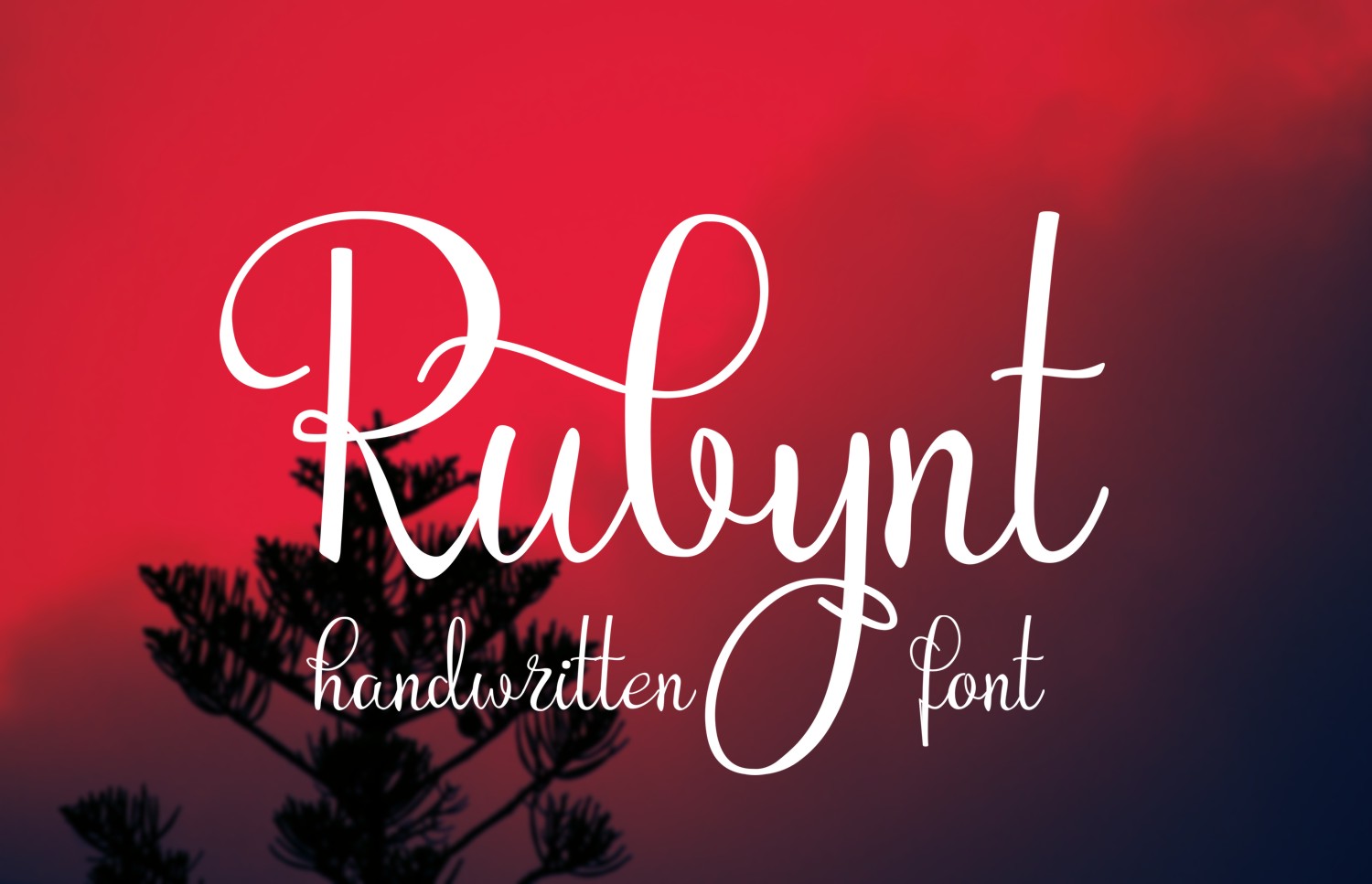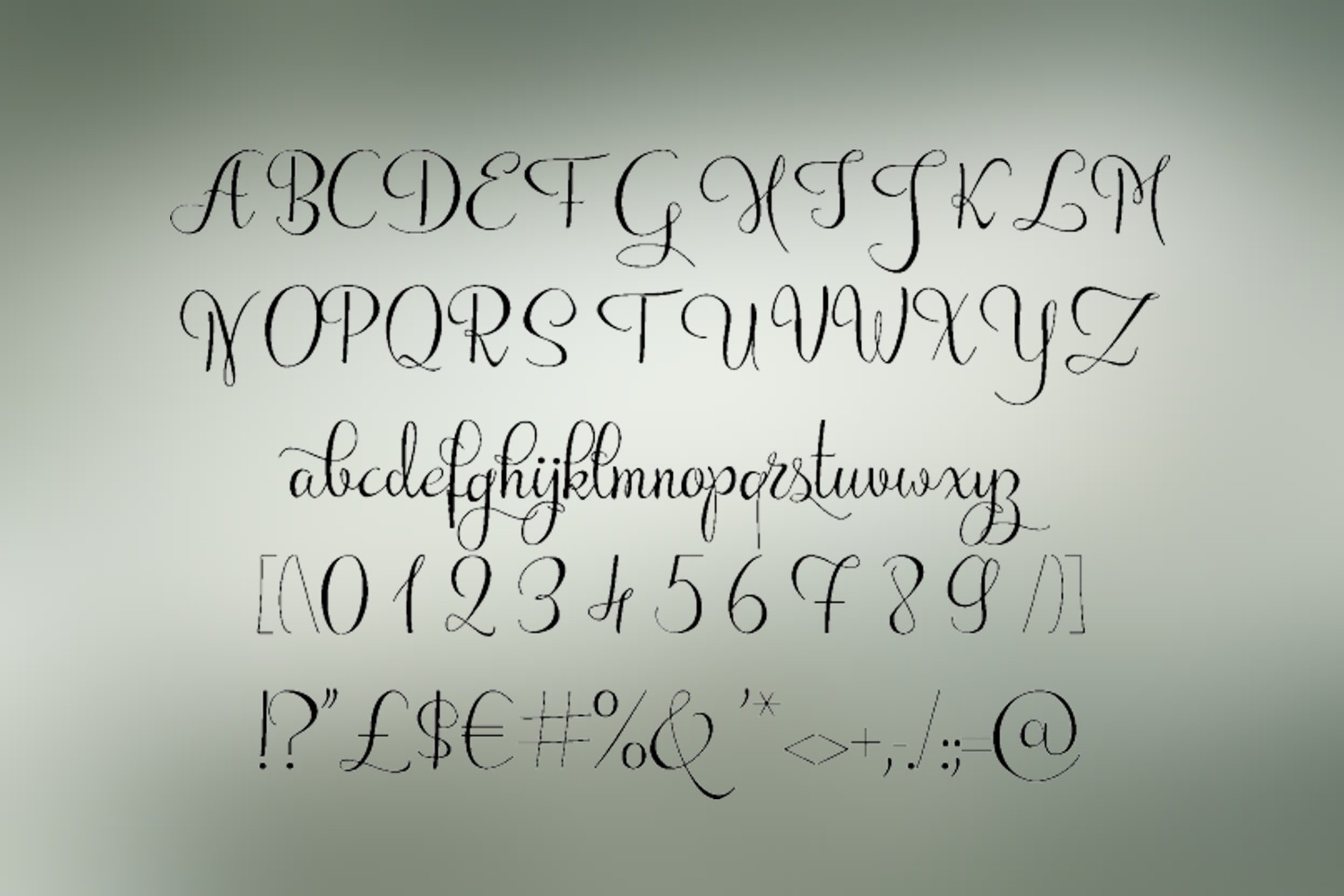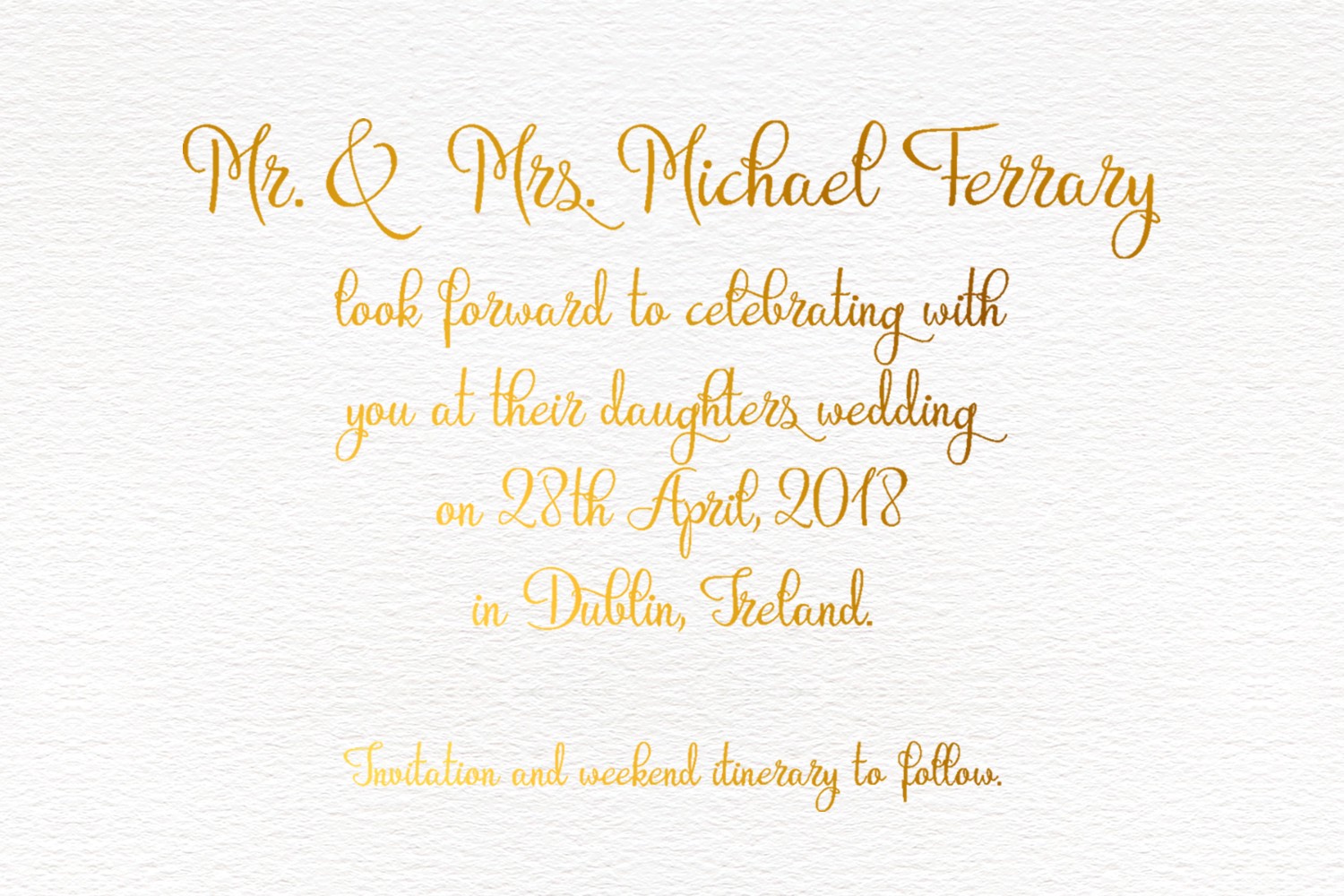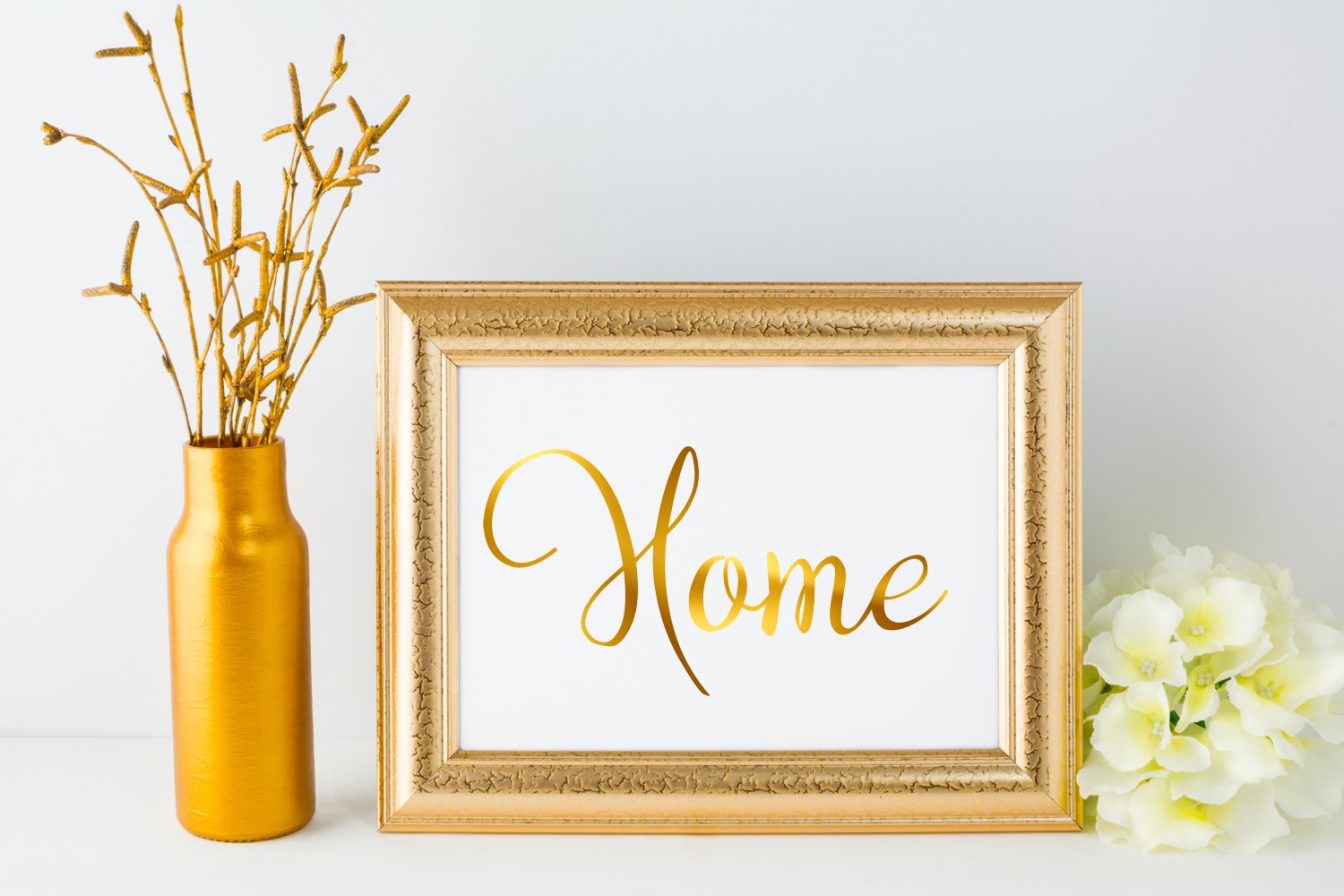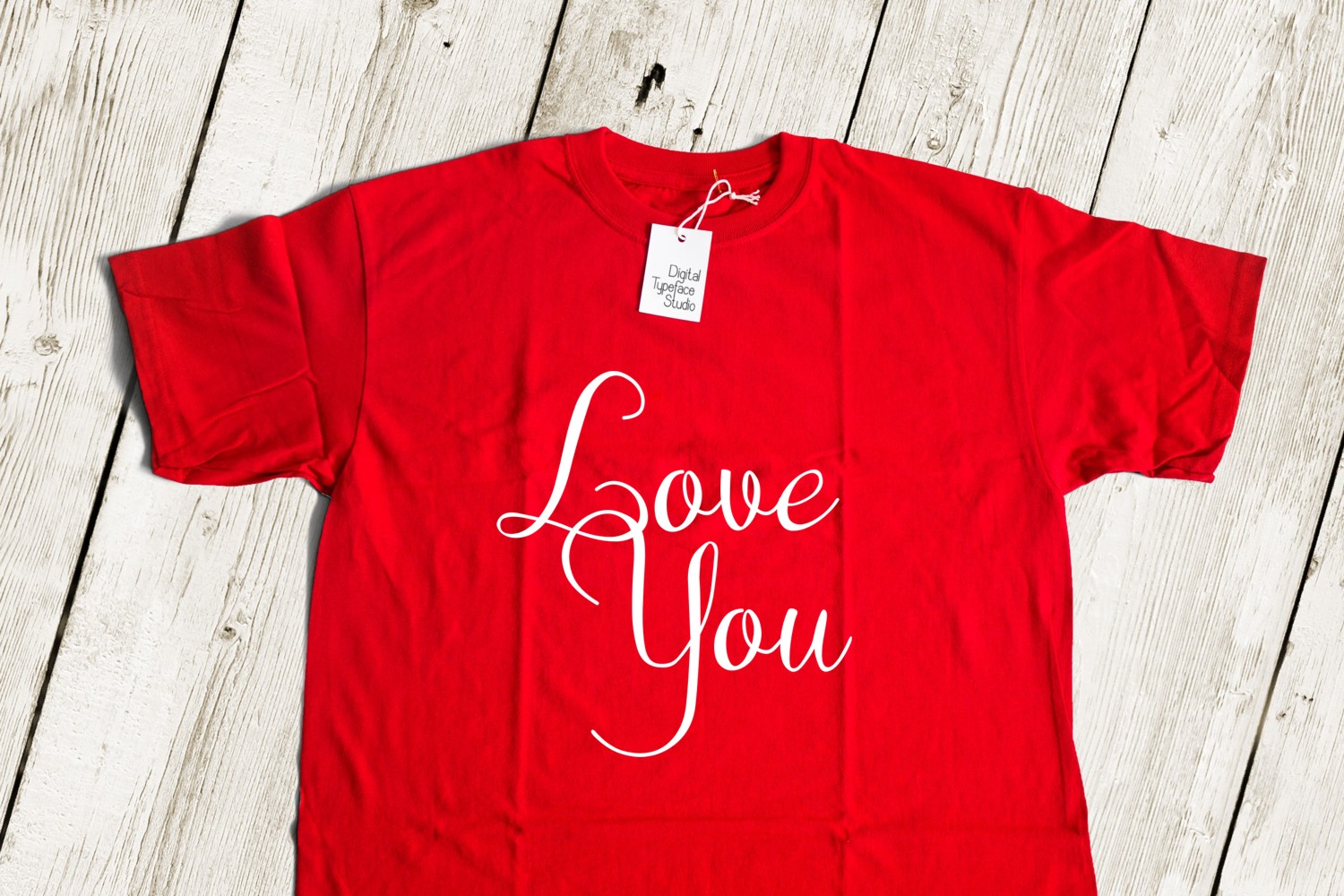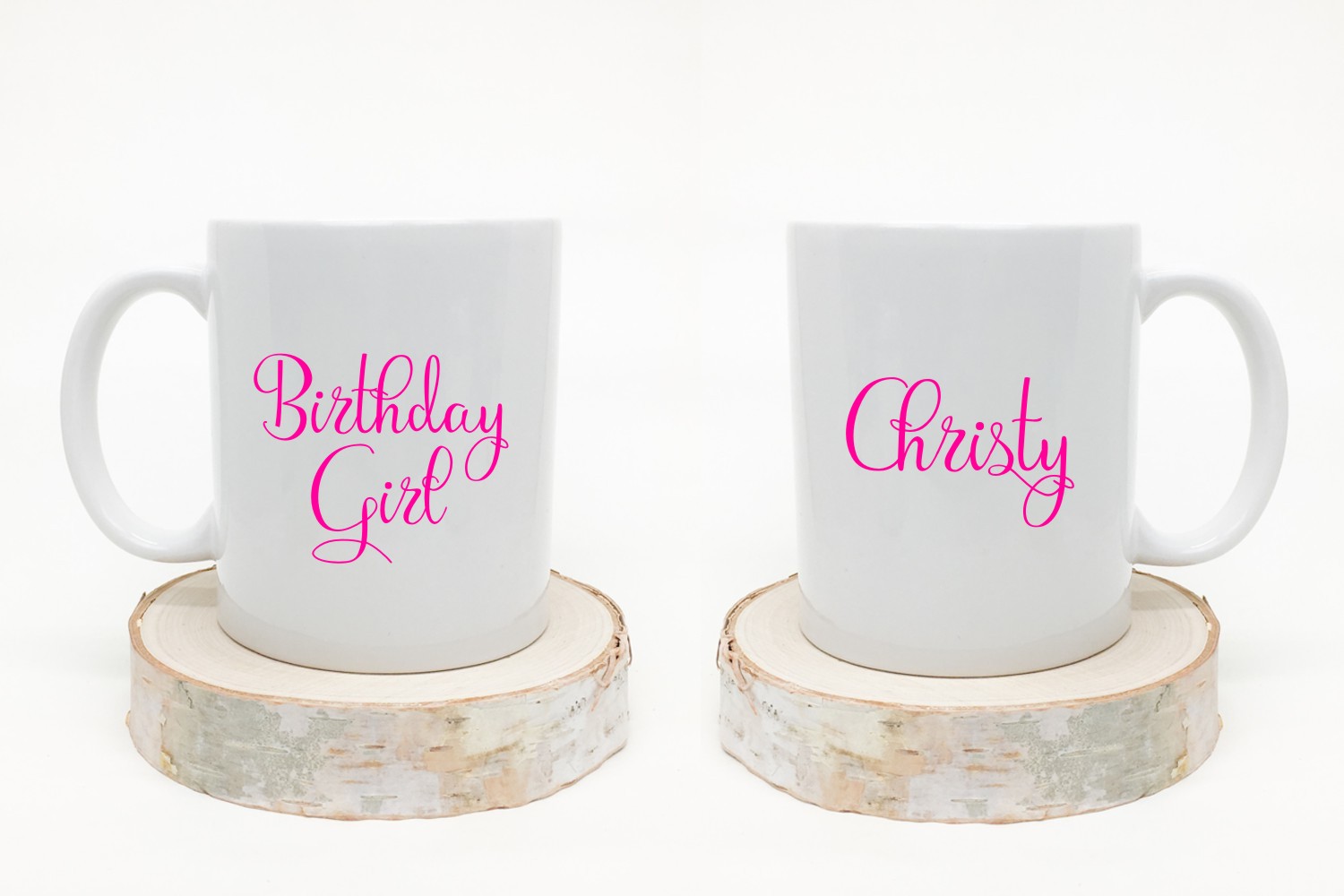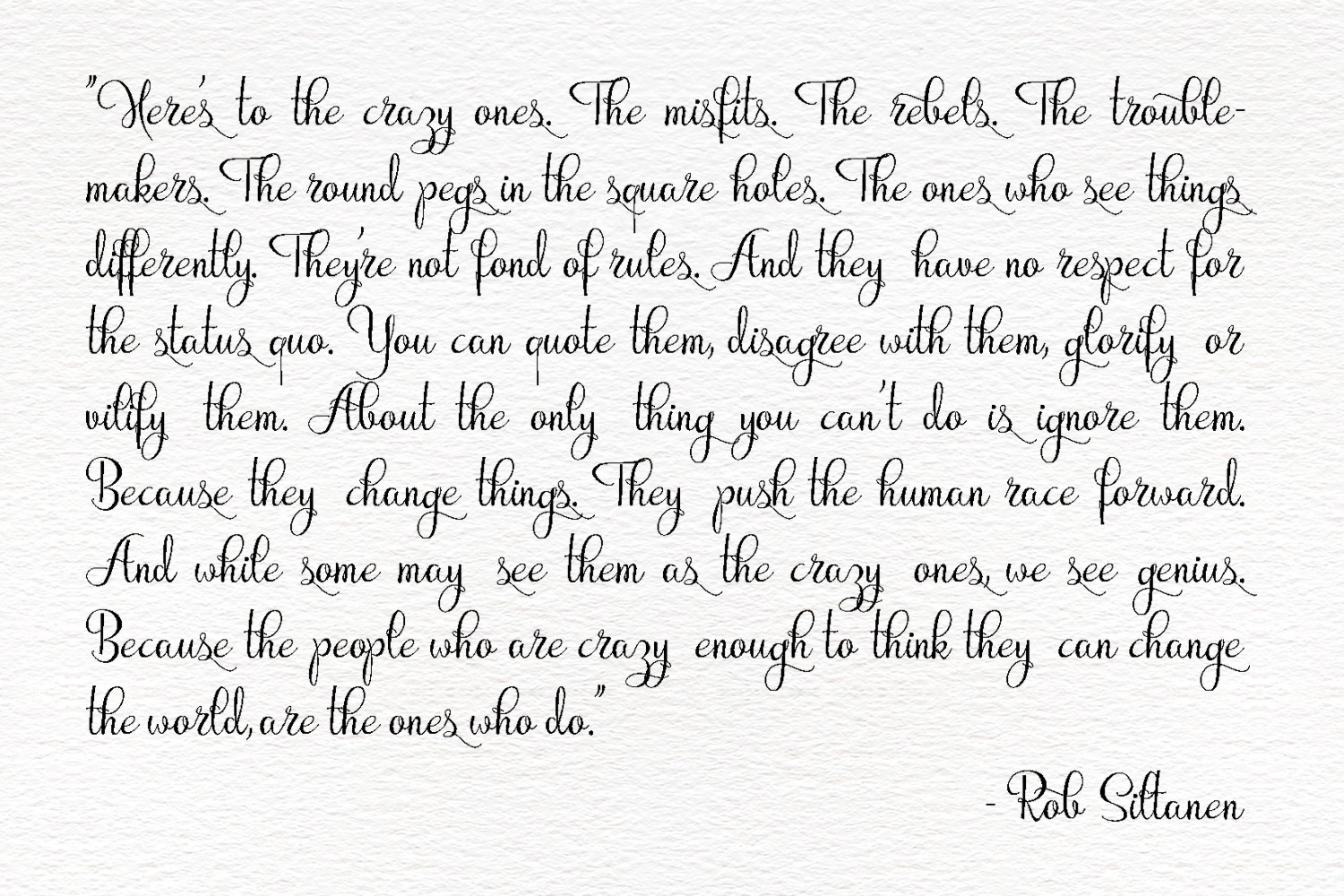
Rubynt Font
About Rubynt Font
Rubynt is a gorgeous and approachable script font, perfect for giving a touch of friendliness and romance to your designs. This handwritten font looks gorgeous across a wide range of styles and applications.